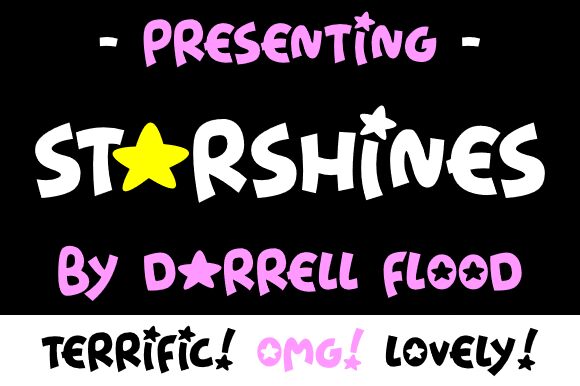
Starshines Italic
Starshines Italic by Hawtpixel is the perfect font for adding a touch of whimsy to any project. Its playful, cartoon-style design makes it ideal for children's books, posters, and even video game titles. The bold weight of this display font ensures maximum impact, while the italic style adds a sense of movement and energy to your text. Whether you're creating branding materials or designing a website, Starshines Italic will infuse your project with personality and charm. Get ready to dazzle your audience with this fun and versatile typeface from the Starshines family.